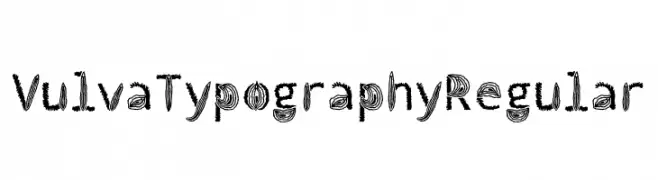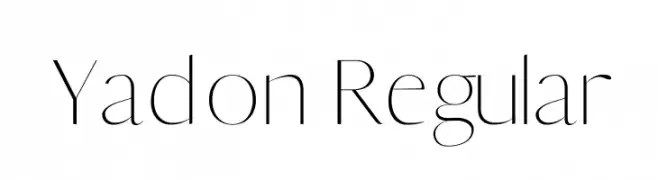
• Vice City Sans Italic Bold
Bold italic sans-serif font with a modern style.
• Vice City Sans Italic Light
Modern, light italic sans-serif font.
• Vice City Sans Light
A modern, light sans-serif font with minimal contrast.
• Vinyl Stickons
A bold, condensed uppercase font ideal for impactful headlines.
• Vulva Typography Regular
An artistic, hand-drawn font with intricate line work and medium contrast.
• Wait And Bleed
A bold, distressed font with a rugged, splattered appearance.
• Wireframe-Davenport
A bold, decorative font with a wireframe effect and high contrast strokes.
• Xanthisma
A playful, hand-drawn font with irregular, exaggerated letterforms.
• XitRAM!
A bold, modern font with a dynamic and edgy style.
• Yadon Regular
A sleek, modern font with clean lines and slight stroke contrast.